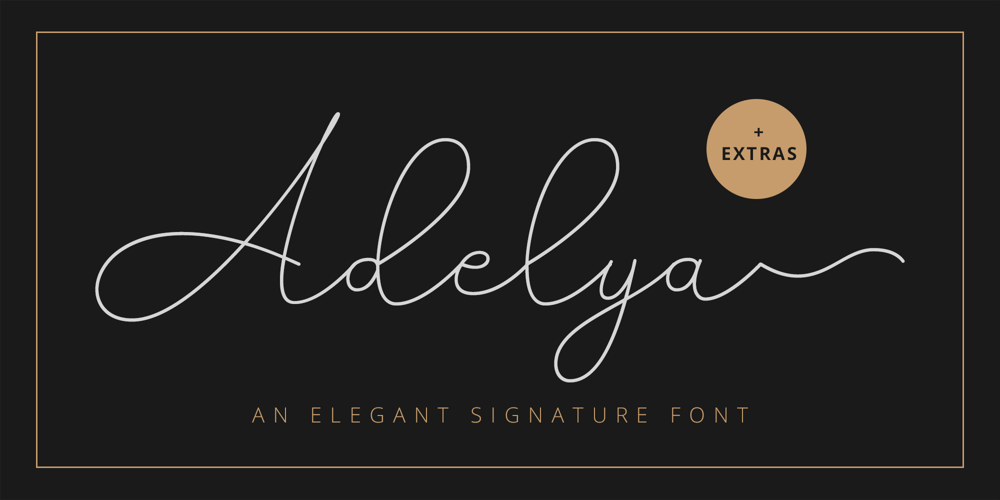
Adelya Font Family was designed by Trio Nazzar Saputra, Wahyu Hadi Yuana and published by Craft Supply Co. Adelya contains 1 styles and family package options. Adelya – Elegant Signature Font is a free-flowing monoline, the two style typeface exploits the common letter-to-letter transitions of the typical cursive hand by utilizing two style points controlled within the machinations of OpenType Contextual Alternates. It can be used to create almost all types of design projects like print materials. Just use your imagination and some graphic design set in Extras, your project will become more alive and look great than ever with one of the Adelya font.